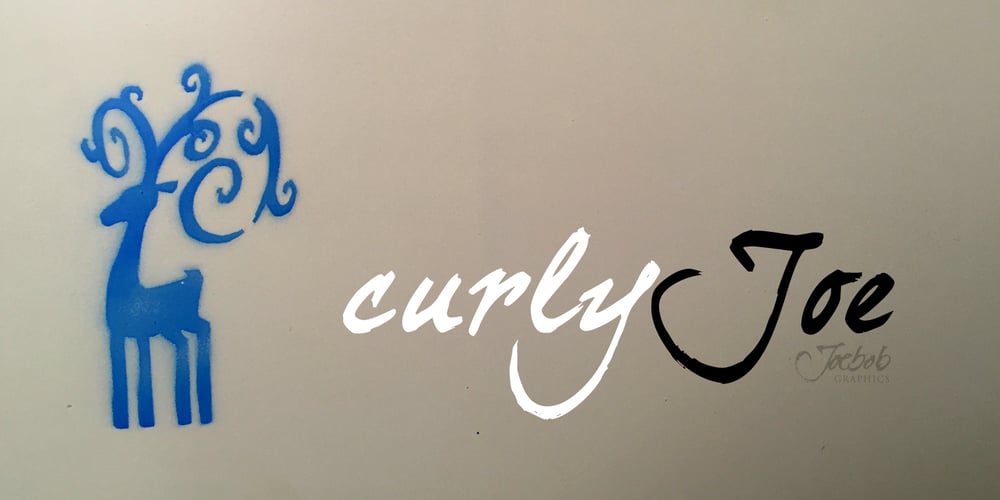
curlyJoe Font Family was designed by Jeroen “Joebob” van der Ham and published by JOEBOB graphics. curlyJoe contains 1 styles and family package options. CurlyJoe is a fast, informal handwritten font. A bit in the line of the dearJoe series, with a different style of caps.